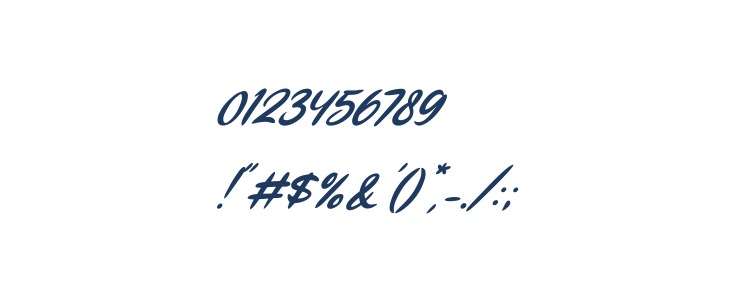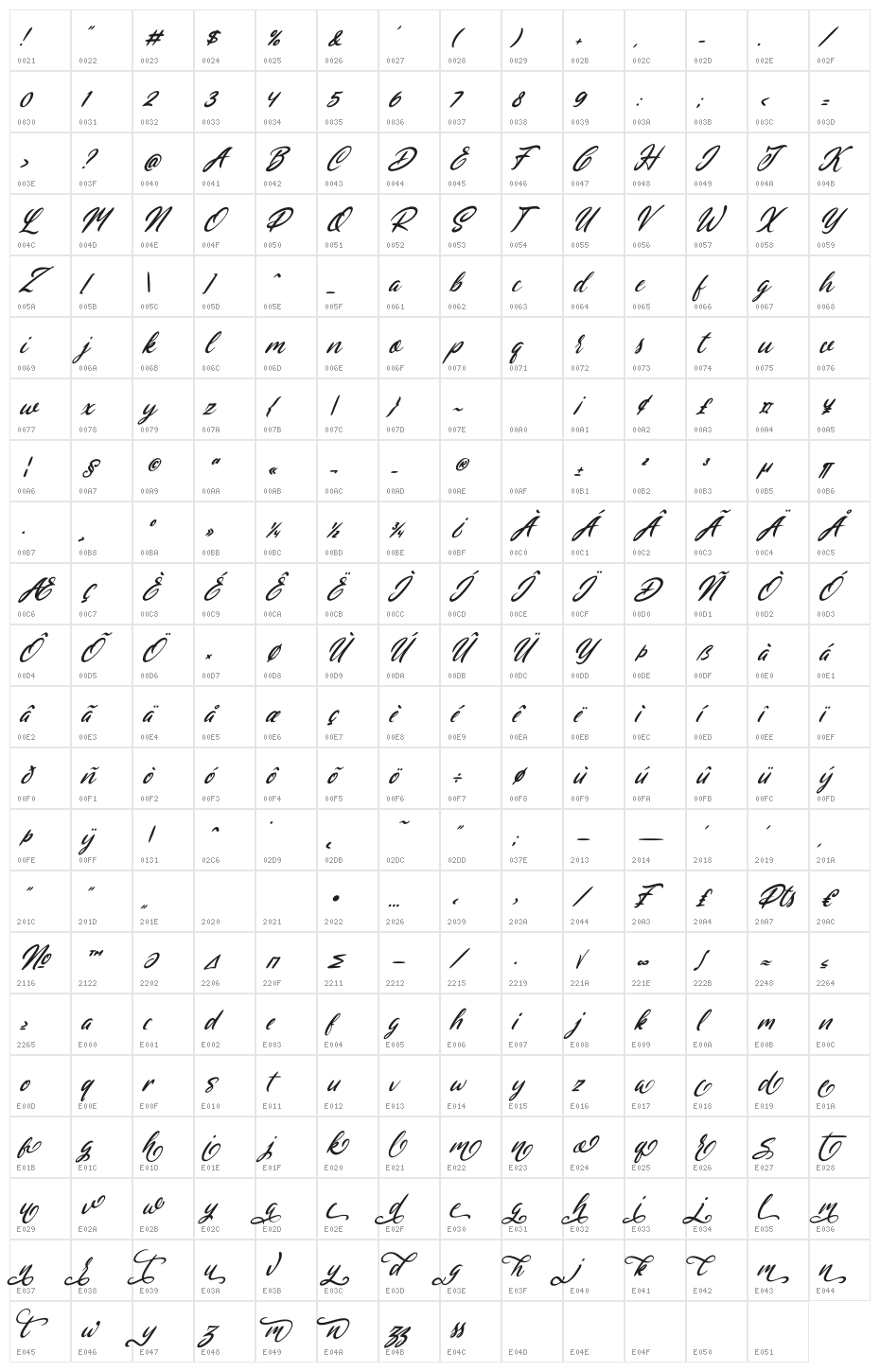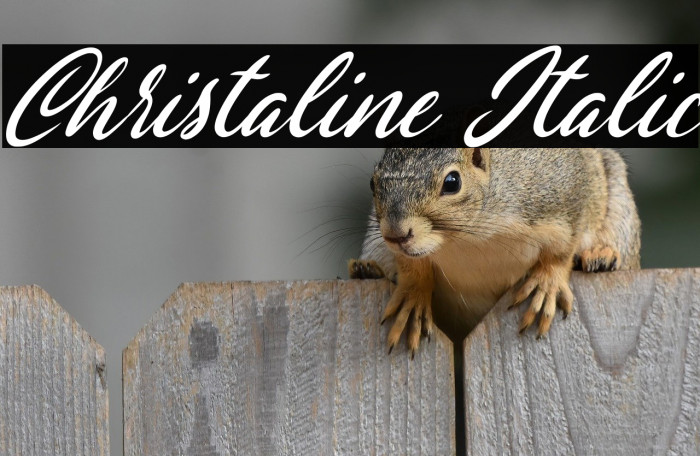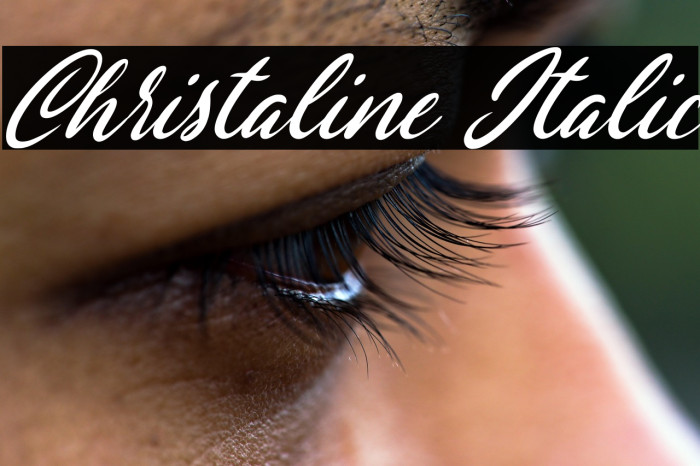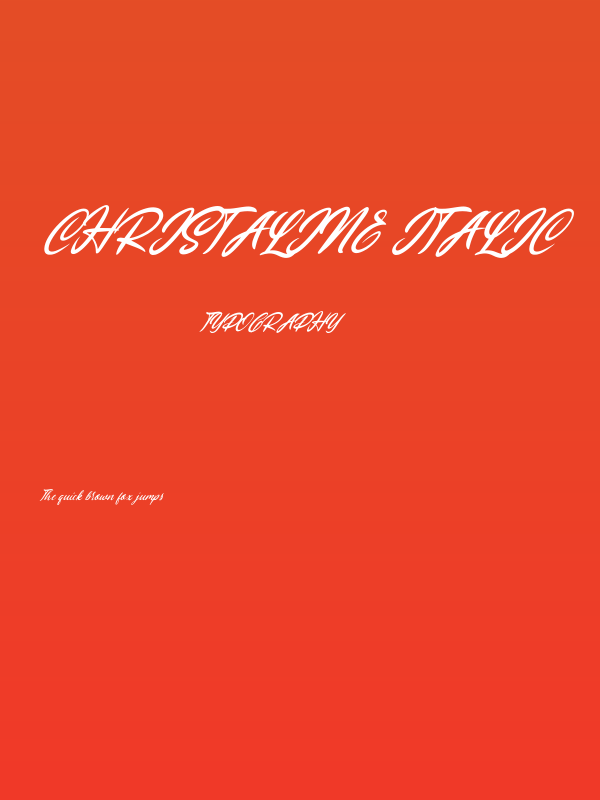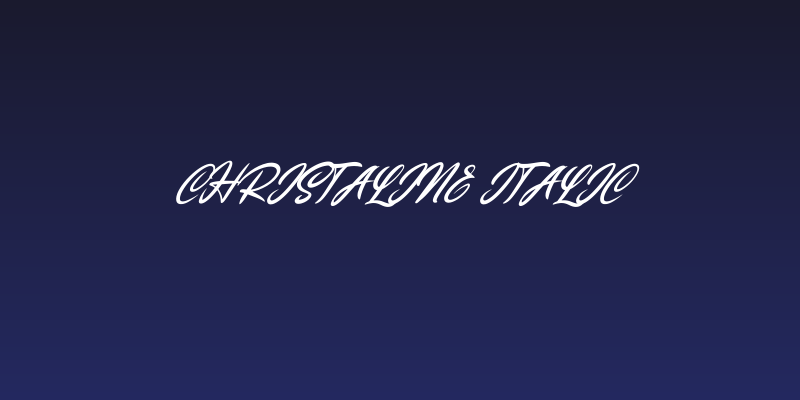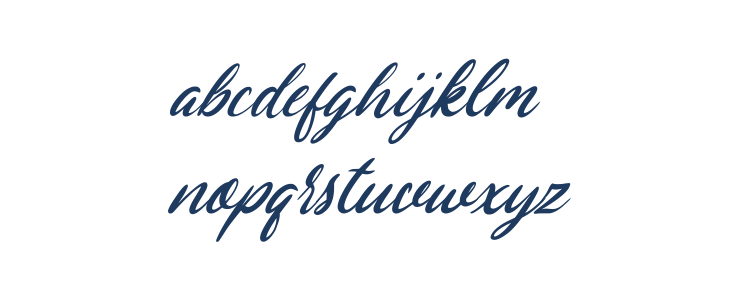
Christaline Italic Font
Christaline Italic Description
This font exudes elegance and fluidity with its cursive, italicized style. The characters are connected in a smooth, flowing manner, reminiscent of traditional calligraphy. The uppercase letters are bold and prominent, while the lowercase letters maintain a consistent slant, enhancing the script's graceful appearance. The numerals and special characters are designed to match the overall aesthetic, ensuring a cohesive look. This font's dynamic strokes and artistic flair make it ideal for projects that require a touch of sophistication and creativity.
| Proposed Projects | Ideal for wedding invitations, greeting cards, elegant branding, and artistic posters. |